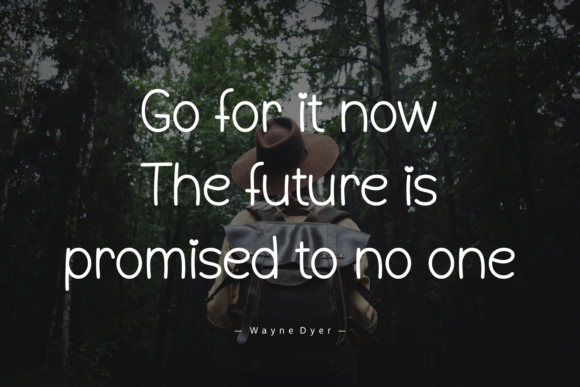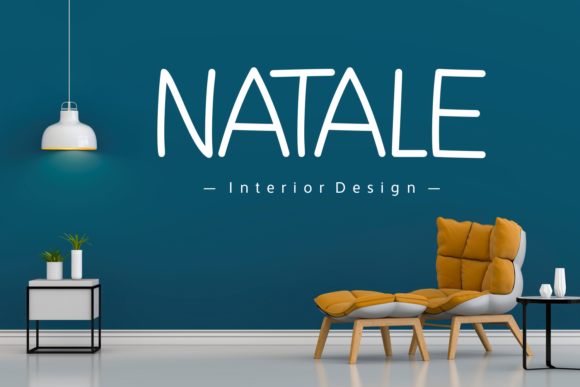
Bringove Font
db-ku.com - Script & Handwritten -- Bringove is a thin, cool and minimalist handwritten font. No matter the topic, this font will be an incredibly asset to your fonts’ library, as it has the potential to elevate any creation.